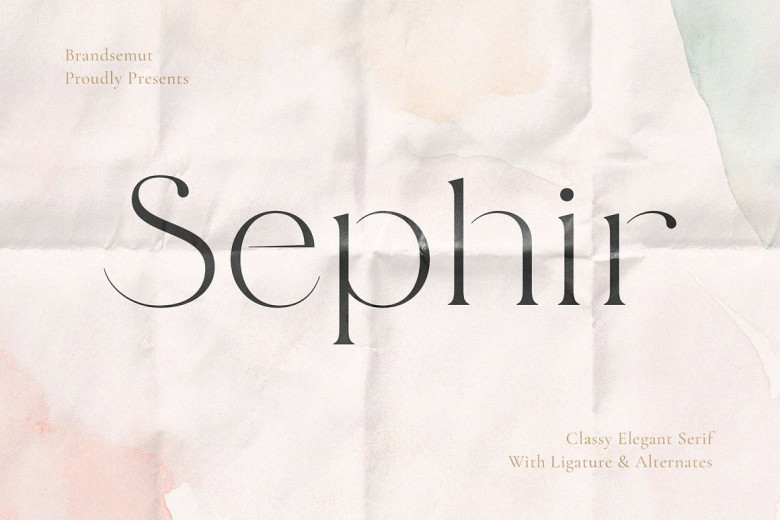
Sephir Font
Introducing Sephir Classy to Elegant Serif. Sephiris a modern, elegant and classy serif font, best used most often: outside of buildings, on storefront signs scalping apart people with anticipation until they come into our store and buy something as we watch how the numbers roll, or for print advertising that’s larger and reads farther away from viewers than it otherwise would do normally inside their armspan. Sephir come with clean lines and smooth curves to give any project an extra touch of class.
Sephir Serif Font